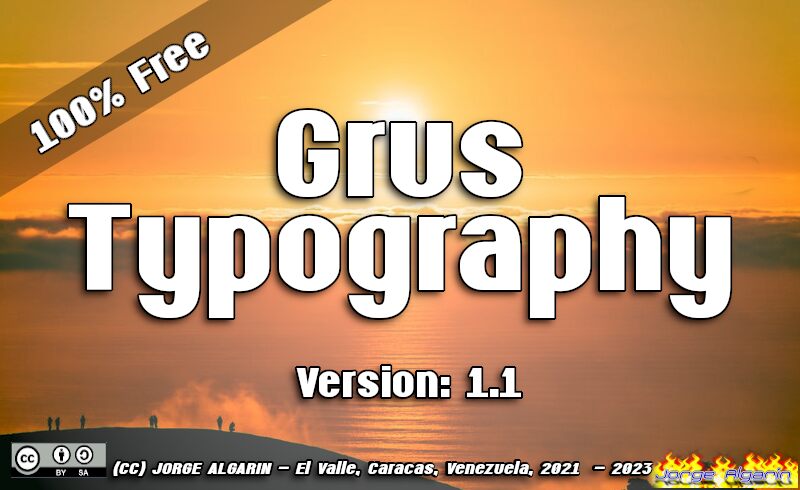
Grus Italic is a bold and condensed sans serif font from the talented designer, Jorge Algarin.
Its sleek and modern style makes it perfect for creating eye-catching headlines, logos, and branding materials. With its unique italic design, this font adds a touch of sophistication to any project. Whether you're working on an edgy fashion magazine or a tech startup website, Grus Italic is sure to make a bold statement.
Get ready to captivate your audience with this versatile and elegant font choice.